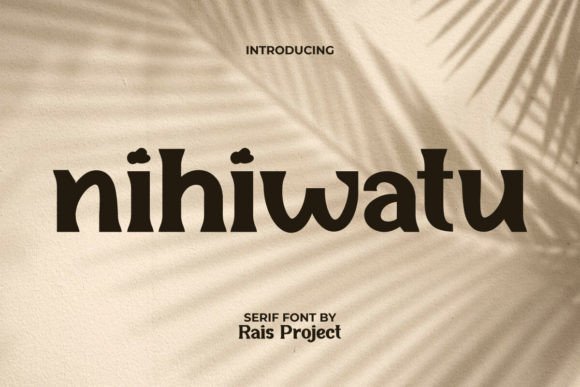
Behold the captivating Nihiwatu Font family, a display font that will ignite your creativity and elevate your designs to unparalleled heights. Dive into a world of typographic artistry with Nihiwatu's stunning Regular, Italic, and various unique styles.
Unleash the power of Nihiwatu to craft breathtaking apps that leave a lasting impression, design brand logos that radiate boldness and distinction, and create business cards that exude professionalism and sophistication. Let your imagination soar as you conjure custom designs that captivate and inspire.
With Nihiwatu, covers, invitations, labels, menus, and posters transform into visual masterpieces. Its versatility extends to product packaging, quotes, screen prints, signage, titles, and web pages, adding a touch of elegance and individuality to every project you undertake.
Nihiwatu Font is your gateway to a world of limitless possibilities. Its captivating characters possess the power to weave enchanting tales, spark conversations, and evoke emotions in the hearts of your audience. Embrace the allure of Nihiwatu and watch as your creative visions come to life with unparalleled beauty and impact.